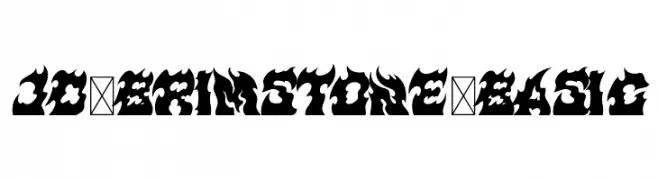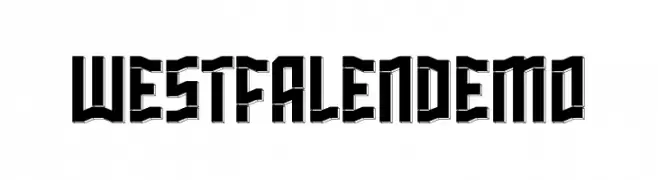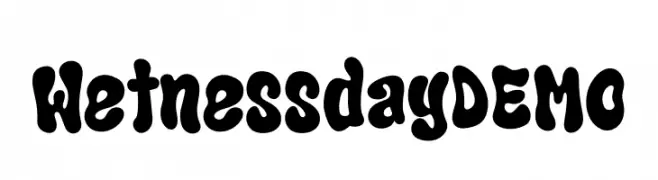
A playful, bubble-like font with a graffiti-inspired style.
A dynamic, handwritten font with fluid, cursive letterforms.
A bold, flame-themed font ideal for dramatic and thematic designs.
A modern, geometric sans-serif font with clean lines and uniform width.
A sleek, modern sans-serif font with a geometric and minimalist design.
A bold, playful font with rounded, bubbly characters and a whimsical style.
Bold, blocky font with a modern and assertive style.
A bold, angular font with a modern Blackletter style.